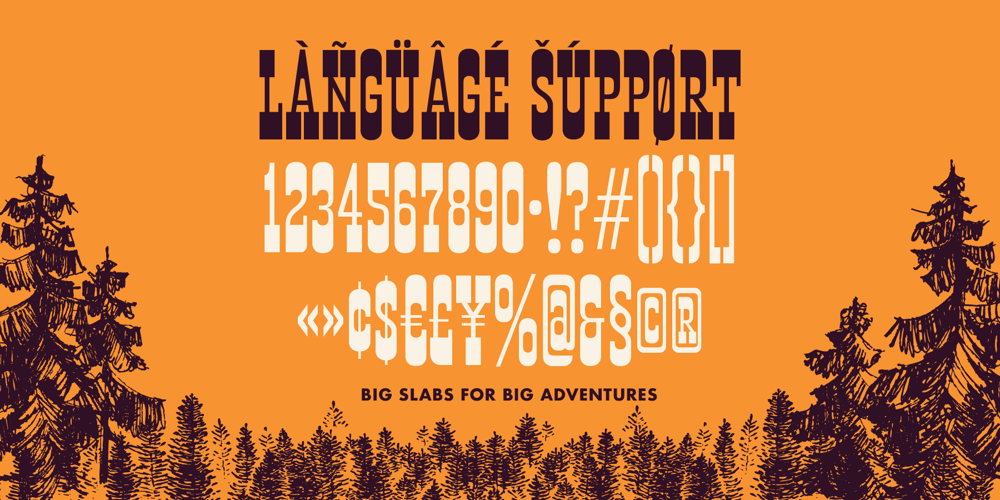
BLT Portage
BLT Portage font
BLT Portage Font Family was designed by Kenny Li and published by Black Lab Type. BLT Portage contains 1 styles and family package options. PORTAGE is a slab serif that carries its own weight. Adventurous and rugged, this typeface that evokes the wild country and makes headlines stand out. The typeface was built from a land and forest journal from the mid-50’s.